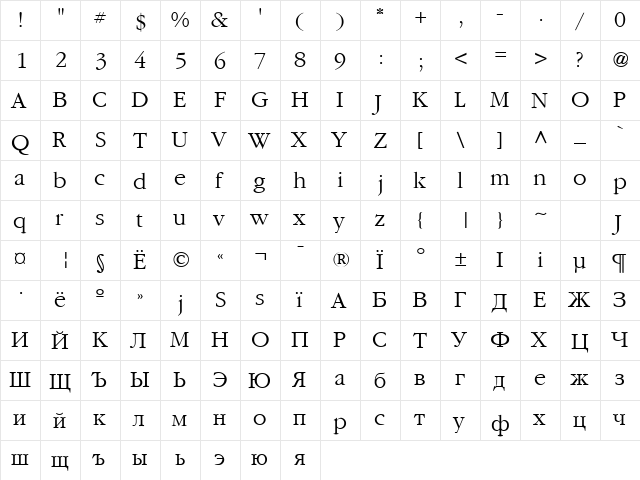
Saturn Light
Design Context for Saturn Typeface
Saturn is a composed and adaptable typeface that performs quietly and consistently across a wide range of design contexts. Its slender proportions lend an understated elegance to any composition.